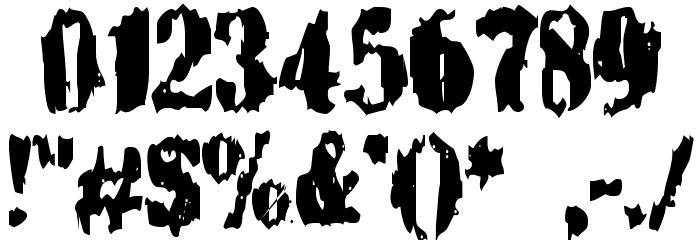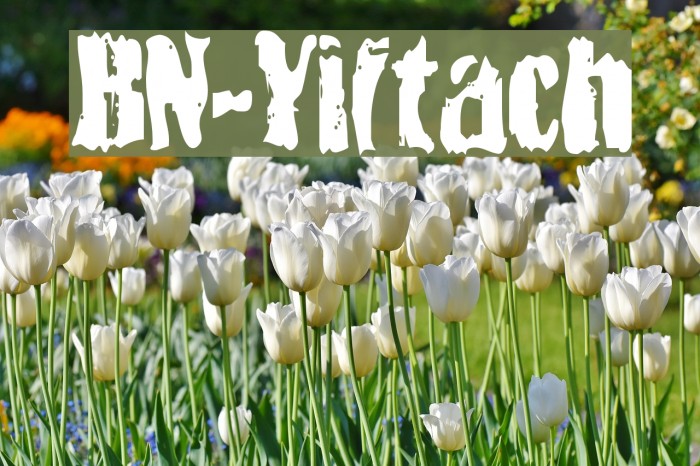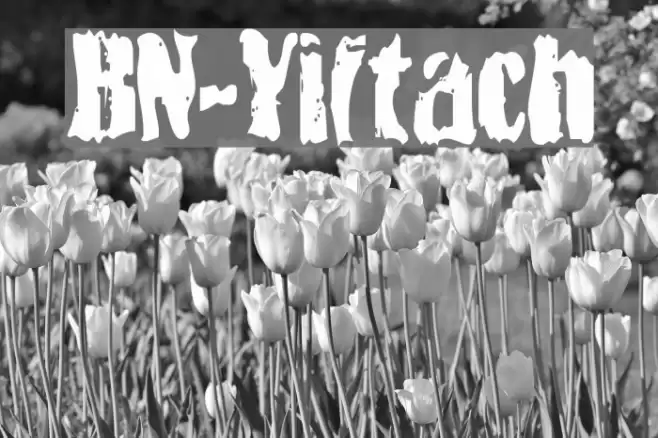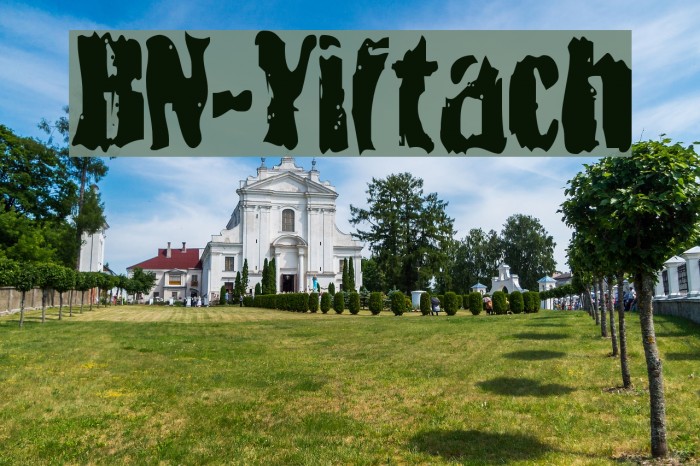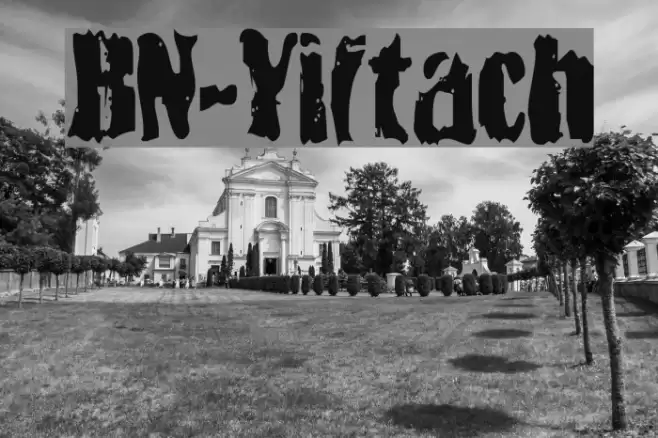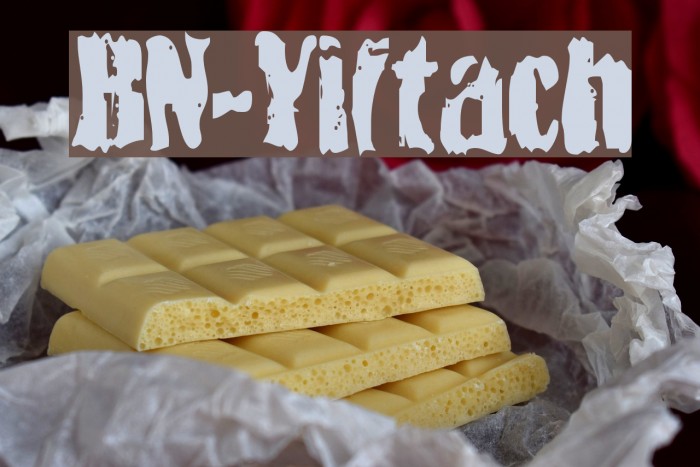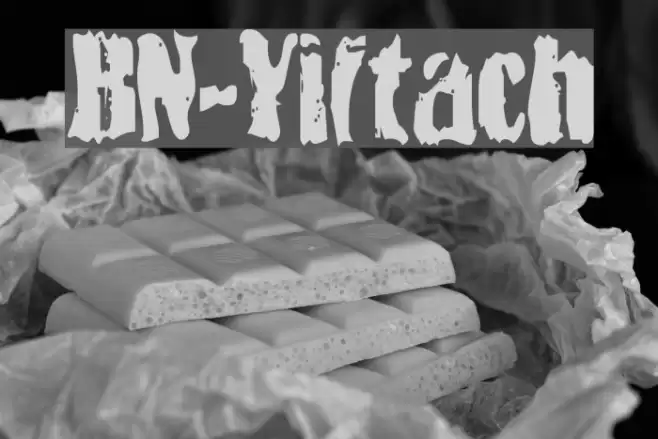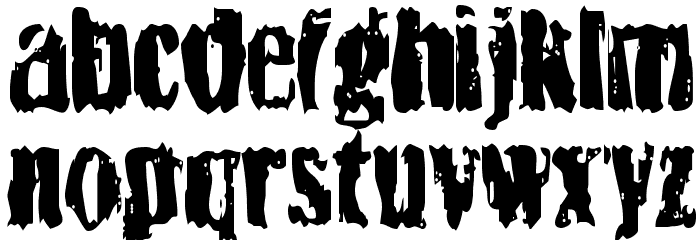
BN-Yiftach Font
BN-Yiftach Description
This font features a highly distressed and grungy aesthetic, with each character appearing as if it has been eroded or splattered with ink. The edges are irregular and jagged, giving it a raw and edgy feel. The uppercase and lowercase letters maintain a consistent style, with bold strokes and uneven textures that create a sense of chaos and movement. The numbers and special characters follow the same design principles, ensuring a cohesive look across all elements. This font is perfect for projects that require a dramatic and unconventional appearance, such as horror-themed designs, music album covers, or rebellious branding.
| Overall Style | Grunge, Distressed |
| Use Case | Logos, Posters, Album Covers |
| Proposed Projects | Ideal for horror-themed designs, music album covers, rebellious branding, and edgy posters. |